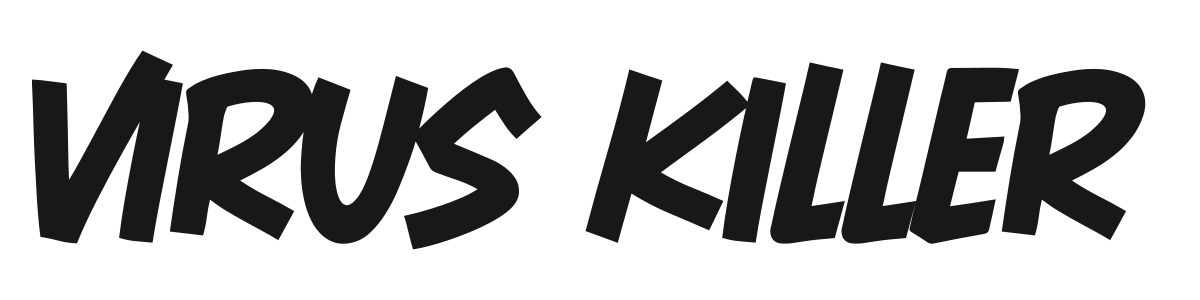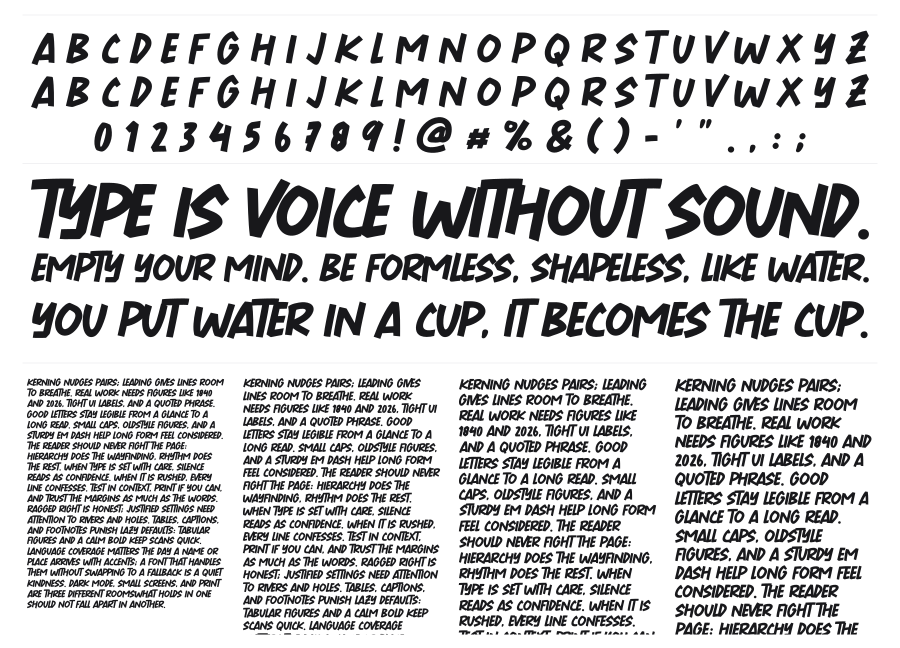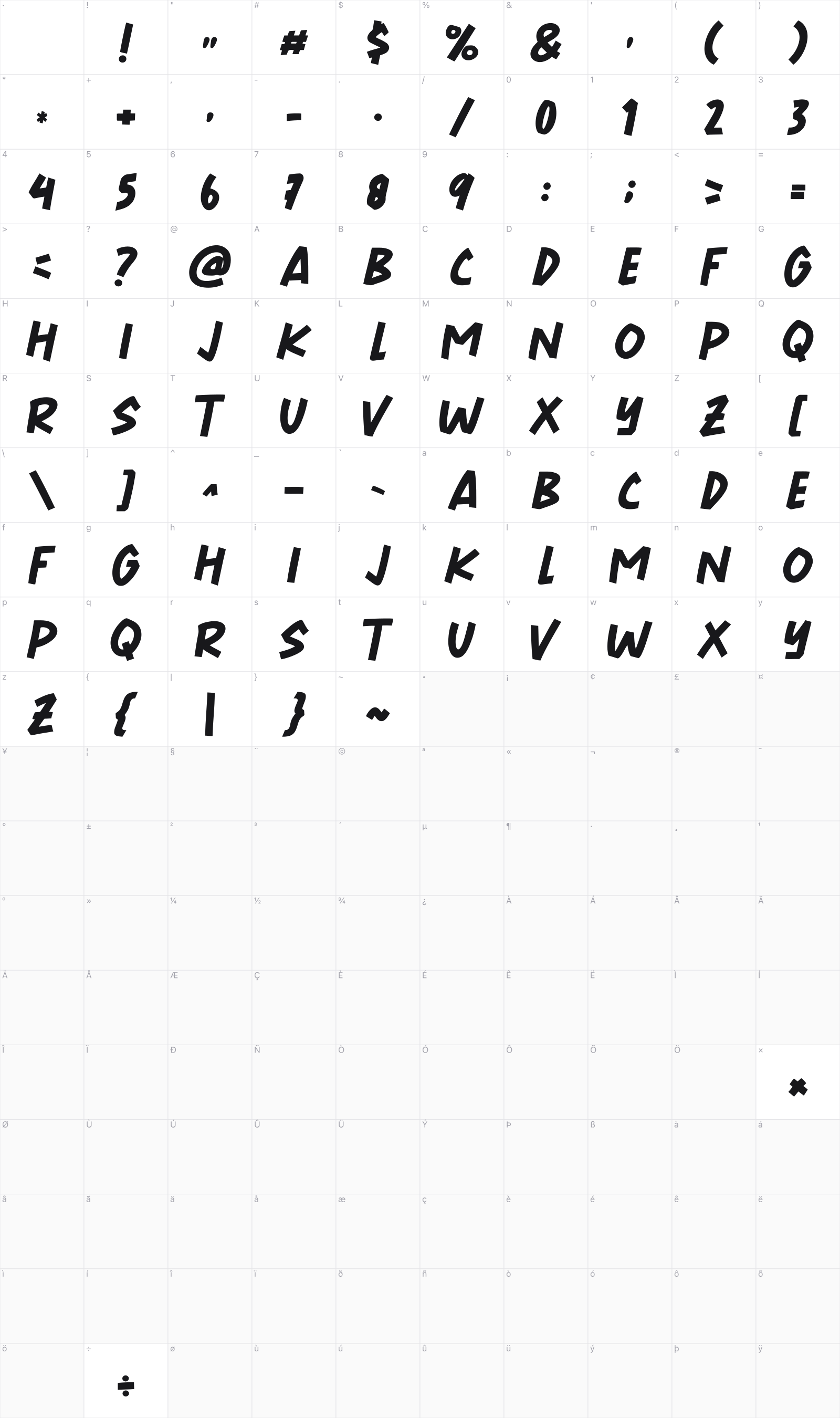
Virus Killer
Virus Killer is a bold, slanted comic-book display font with chunky hand-lettered strokes and raw, energetic character. The strong italic angle and brush-influenced irregularities give it a sense of motion and urgency. Built for posters, game titles, and any headline that needs to feel alive.